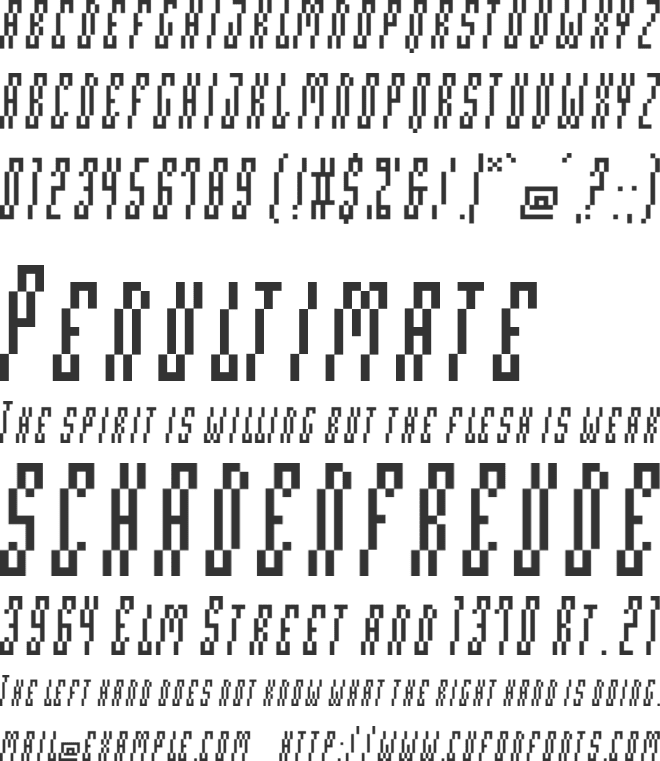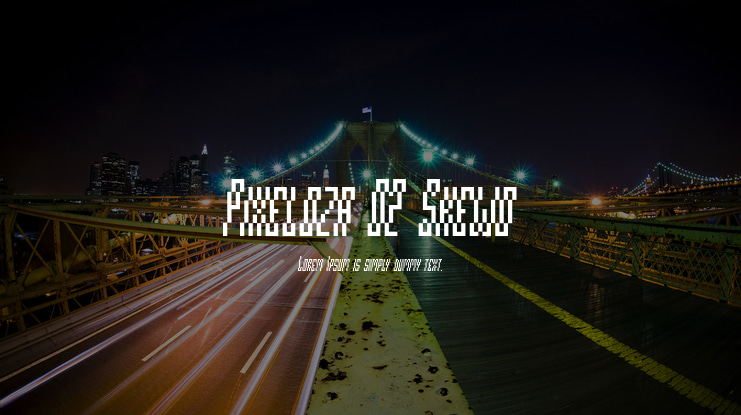
Pixeloza 02 Skewo Font
Pixeloza 02 Skewo Pixeloza 02 is a pixel-style, grid-based, display typeface. Pixeloza 02 is available in two options: Pixeloza 02 Regular and Pixeloza 02 Skewo Regular (Free).
The font is characterized by its simplicity, attention to detail, and original form. You can use it in a wide variety of projects. It gives many possibilities for creating graphics.